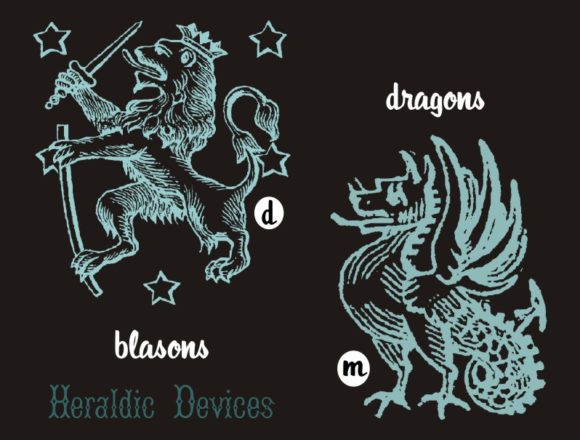
Heraldic Devices Font
About Heraldic Devices Font
The Heraldic Devices is a stunning set of historically accurate heraldic devices that bring a touch of classic beauty and elegance to any design project. Whether you’re designing a logo, a card, or any other visual element, these heraldic designs are sure to catch the eye of your audience and instantly convey a sense of prestige and elegance.
The Heraldic Devices is an incredible asset to any designer’s font library, with its incredible versatility and wide range of motifs. With its rough, realistic and historical old print style, this set of heraldic devices can be used in a wide range of projects, from logos to signs to printed materials. Whether you’re designing a logo for a luxury hotel, a fine dining establishment, or any other project, these heraldic designs are the perfect way to add a touch of classic prestige to your design.
The Heraldic Devices is also an ideal choice for any designer looking for a visually striking and memorable set of designs. With its historically accurate heraldic style, this set of designs has the potential to create a design that stands out from the crowd. Whether you’re designing a logo or a card, these heraldic motifs are sure to create a design that is both visually intriguing and unforgettable.
One of the best ways to use the Heraldic Devices is to create a design with a touch of classic prestige. Whether you’re designing an invitation to a high-end event, a fine dining establishment logo, or any other project, these heraldic designs are the perfect way to add a touch of classic elegance to your design.
In addition, the designs in the Heraldic Devices are designed to be historically accurate, without being oppressive or overpowering. Whether they are rough, realistic or historical, these heraldic motifs can be used to create a design that is both visually appealing and easy to read.
So if you’re looking for a visually striking and memorable set of designs that can be used in a wide range of projects, The Heraldic Devices is a great choice. With its classic beauty and elegance, this set of heraldic designs has the potential to create a design that stands out from the crowd and conveys a sense of prestige and sophistication.